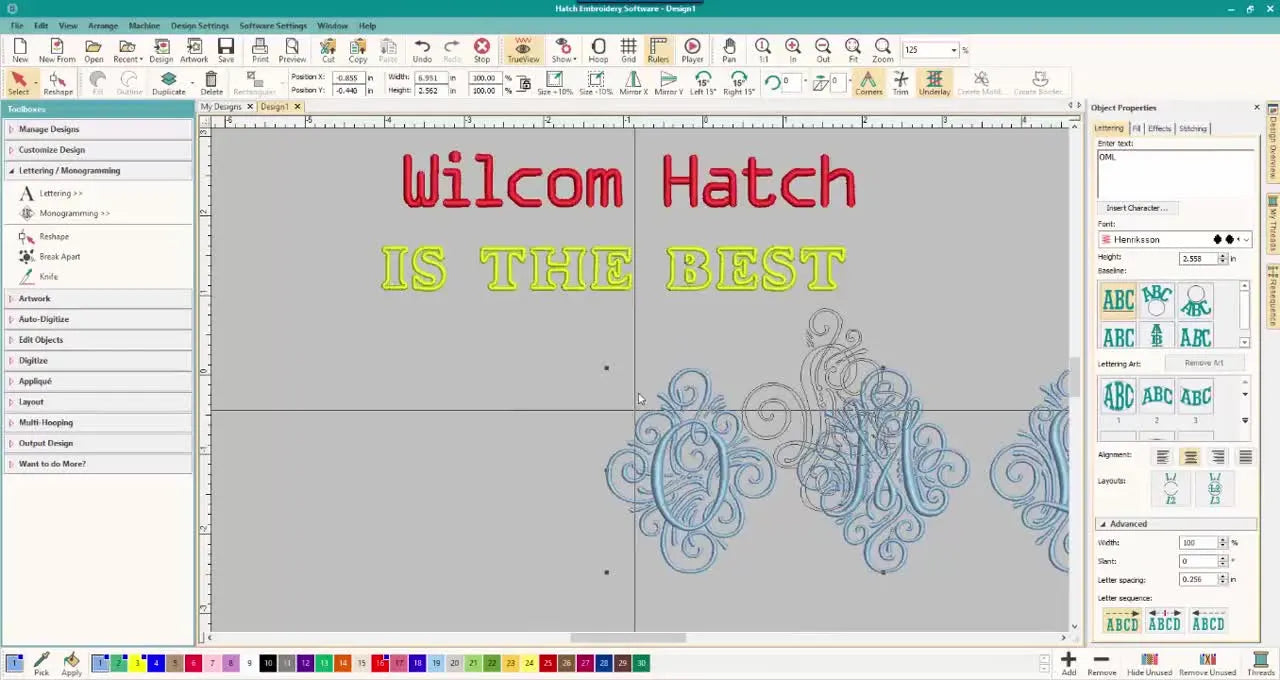
Monogram fonts are supposed to feel like magic—type three letters, hit start, and watch a personal brand appear. But if you have ever watched a gorgeous, expensive-looking medallion font turn into a tight, bullet-proof blob on your fabric, you know the frustration. It’s not just a waste of thread; it’s a waste of the emotional energy you put into the project.
In this deep dive based on Sue from OML Embroidery’s Wilcom Hatch lesson, we are going to dismantle Font Pack 2. We will analyze three distinct lettering styles—Microscan (the tiny specialist), Glory Applique (the structural outline), and Henriksson (the dramatic diva). But I’m not just going to tell you how to click the buttons. I’m going to teach you the physics of why these fonts fail when resized incorrectly, and how to build a production workflow that guarantees clean, crisp results every time.
Calm the Panic: When Hatch Monogram Fonts Look Wrong, It’s Usually Size—not “Bad Digitizing”
When a novice sees a messy stitch-out, they blame the digitizer. When a pro sees a messy stitch-out, they check the scale.
Pre-digitized fonts are not vectors. Unlike a PDF on your computer screen which can scale infinitely, an embroidery font is a collection of physical instructions: specific stitch angles, underlay densities, and compensation settings built for a specific physical dimension.
That is especially true for ornate medallion styles like Henriksson. If inserted at a default size that is too small, the software tries to jam 500 satin stitches into a 10mm space. The result is a "thread nest"—a hard, lumpy knot that can actually jam your machine. The fix isn't a hidden setting; it is giving the satin columns room to breathe.
Shift your mindset: Treat specific fonts like specific drill bits. You wouldn't use a massive auger bit to drill a pilot hole for a jewelry box. Similarly, you cannot force a medallion font into a cuff label. Respecting these operating limits is the first step to professional quality.
The “Hidden” Prep Before You Type Anything: Set Up Hatch Lettering Like a Pro
Sue starts in the Toolbox, but I want you to start at your machine. Before you even open the software, you need to verify your physical setup. A font is only as good as the needle delivering it.
For detailed lettering, standard 40wt thread is usually fine, but if you are pushing the lower size limits (like Microscan), consider switching to a 60wt thread and a smaller needle (size 65/9 or 70/10). This reduces the physical footprint of each needle penetration, keeping text crisp.
Hidden Consumables You Need:
- Fresh Needles: If you hear a "popping" sound as the needle penetrates, change it. A burred tip shreds satin stitches.
- Bobbin Check: Ensure your bobbin tension is calibrated. You want to see 1/3 white bobbin thread down the center of the back of a satin column. If you see only top thread on the back, your top tension is too loose or bobbin too tight—this causes "looping" on small text.
If you are planning to stitch these on finished garments, you must also consider your hooping strategy. Standard plastic hoops rely on friction and inner/outer ring pressure. This often leads to "hooping distortion"—where the fabric is stretched unevenly, warping the letters. This is why professionals often search for machine embroidery hoops that offer better stability without the "tug of war."
Prep Checklist (Do this BEFORE software)
- Needle Audit: Is the needle fresh? (Use 75/11 for standard, 65/9 for micro text).
- Bobbin Tension: Check a test stitch. Pull the bobbin thread; it should drag with resistance similar to pulling a spiderweb—light but constant.
- Software Ready: Open Hatch and confirm access to Toolbox → Lettering.
- Goal Definition: Micro text? Applique? Medallion? Choose the font based on function, not just vibe.
Fabric Identification: Is it Stretchy (Knit), Unstable (Loop Terry), or Stable (Canvas)?
Microscan in Wilcom Hatch: Make Small Text Stay Crisp Instead of Turning to Mush
Sue selects Microscan, and this is a crucial teaching moment. "Micro" fonts are engineered differently. They use simpler underlay (often just a center run) and wider spacing to prevent thread buildup.
The official size range for Microscan is minimum 4 mm and maximum 40 mm.
The Danger Zone:
- Below 4mm: The needle holes are too close together. The fabric can perforate (cut out like a stamp), creating a hole instead of a letter.
- Above 40mm: Because this font is designed to be wiry and thin, scaling it up too high makes it look spindly and weak. It lacks the complex underlay needed for large letters.
Sensory Check: When stitching Microscan, listen to your machine. It should sound like a fast, light clicking. If it sounds like a heavy "thump," you are over-saturating the specific area.
Glory Applique in Hatch: Get Instant Applique-Style Letters (Even If You Don’t Applique)
Glory Applique is a powerhouse for production because it is low stitch-count but high impact. Sue types "Wilcom Hatch IS THE BEST" and switches the font.
- Success check: Underlay lands exactly where expected, and after unhooping the monogram stays straight with minimal puckering.
- If it still fails: Stop and run a garment-specific test stitch—garments behave differently than felt samples.